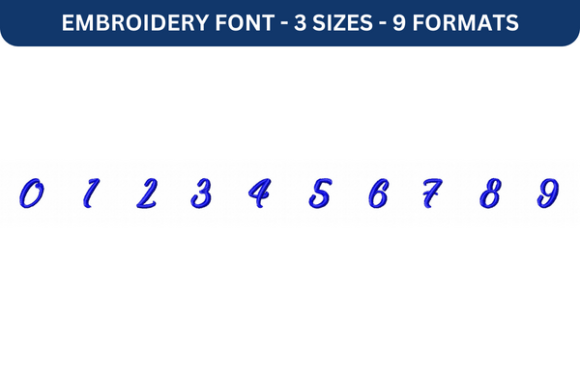
Reality Sunday Font Number 0 to 9: A Reliable Choice for Embroidery Designers
If you're looking for a versatile and high-quality embroidery font that can elevate your creative projects, Reality Sunday Font Number 0 to 9 is worth considering. This font is designed with precision and practicality in mind, making it an excellent choice for both beginners and seasoned designers. Whether you're crafting personalized gifts, branding materials, or custom apparel, this font offers the flexibility and quality needed to bring your ideas to life.
Why Choose Reality Sunday Font Number 0 to 9?
The Reality Sunday Font Number 0 to 9 stands out due to its clean lines, consistent spacing, and adaptability across various fabric types. It’s not just about aesthetics—it's about functionality. The font is ideal for writing names, dates, quotes, and other text elements that require clarity and legibility on fabric. Its design ensures that each character maintains its shape and readability even when scaled down or embroidered at different densities.
Common Mistakes When Using Reality Sunday Font Number 0 to 9
While the Reality Sunday Font Number 0 to 9 is a powerful tool, there are several common mistakes that users often make. Understanding these can help you avoid unnecessary frustration and ensure better results.
- Ignoring thread type and color: The appearance of the font can be significantly affected by the thread you choose. Using the wrong thread may result in poor visibility or an unprofessional look. Experiment with different colors and types to find the best match for your project.
- Overlooking stitch density: Stitch density plays a crucial role in how the font appears on fabric. Too few stitches can lead to a blurry or incomplete design, while too many can cause the fabric to pucker. Adjusting the density based on the fabric type and design complexity is essential for optimal results.
- Failing to test on scrap fabric: Before committing to a full design, it’s wise to test the font on a small piece of fabric. This helps identify any potential issues with alignment, spacing, or overall appearance before proceeding with the final product.
How These Mistakes Can Impact Your Work
Making these mistakes can lead to wasted time, materials, and effort. For instance, using incompatible file formats might require you to download additional software or convert files, which can be time-consuming. Similarly, ignoring thread and stitch settings can result in subpar designs that don’t meet your expectations, potentially affecting customer satisfaction if you’re creating products for sale.
By being mindful of these common pitfalls, you can save yourself from unnecessary setbacks and ensure a smoother, more efficient workflow.
Practical Tips for Using Reality Sunday Font Number 0 to 9 Effectively
To get the most out of the Reality Sunday Font Number 0 to 9, consider the following tips:
- Choose the right fabric: Different fabrics react differently to embroidery. Cotton and linen are generally more forgiving, while delicate fabrics like silk may require special care. Always select a fabric that complements the font’s style and weight.
- Use high-quality thread: Invest in good-quality embroidery thread to ensure vibrant colors and durability. Threads like rayon or polyester are popular choices for their brightness and strength.
- Adjust settings based on fabric thickness: Thicker fabrics may require a higher stitch density, while thinner ones might need fewer stitches to prevent puckering. Experiment with different settings to find the perfect balance.
- Save your work regularly: Especially when working on complex designs, it’s important to save your progress frequently. This helps prevent data loss and ensures you can continue working without interruption.
What to Check Before Using Reality Sunday Font Number 0 to 9
Before diving into a project with the Reality Sunday Font Number 0 to 9, take a moment to review the following:
- File formats: Ensure you have the correct formats (such as .dst, .pes, .exp, etc.) compatible with your embroidery machine.
- Font size and scaling: Verify that the font size is appropriate for the intended use. Scaling up or down can affect the clarity and appearance of the design.
- Machine capabilities: Confirm that your embroidery machine can handle the font’s complexity and size. Some machines have limitations on the number of stitches or the maximum size of the design.
- Software compatibility: If you're using embroidery design software, make sure it supports the file formats included with the font.
By taking these steps, you’ll set yourself up for success and reduce the risk of technical issues that could derail your project.
Conclusion
The Reality Sunday Font Number 0 to 9 is a valuable asset for anyone involved in embroidery design. With its clean, adaptable style and support for multiple file formats, it offers a reliable solution for a wide range of applications. By avoiding common mistakes and following practical guidelines, you can maximize the font’s potential and create stunning, professional-quality designs.